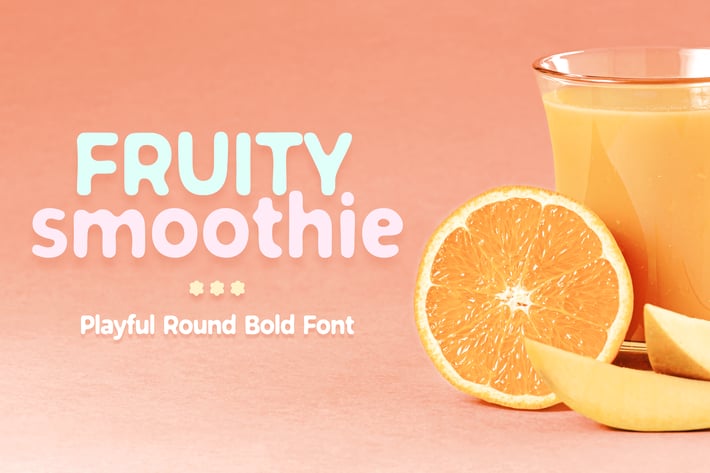
Fruity Smoothie Font
Playful round bold font great for any kind of project - children, school, craft, art, advertising, headlines etc. It incorporates lowercase and uppercase letters with bold lines, smooth curves and rounded corners. Language support: English, German, Spanish, French, Italian, Slovak, Czech and many more..